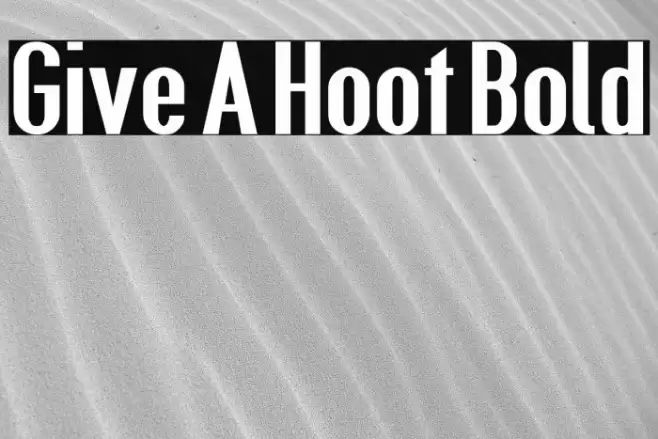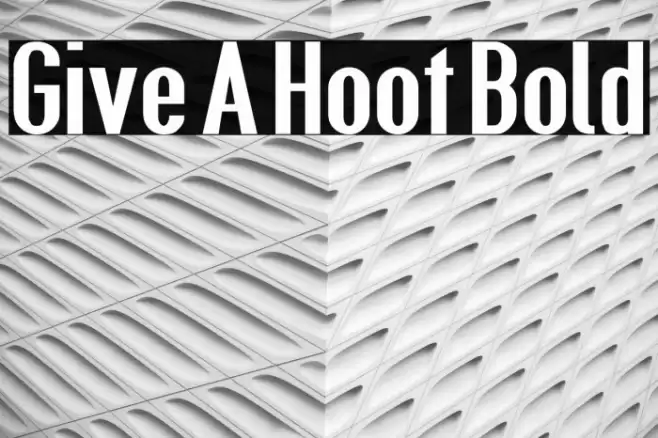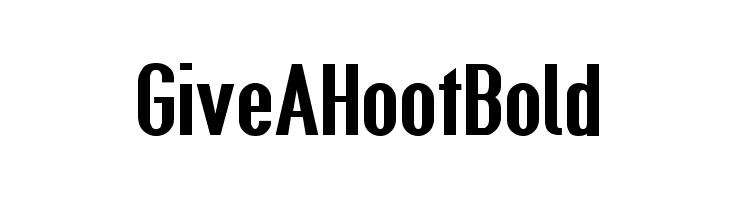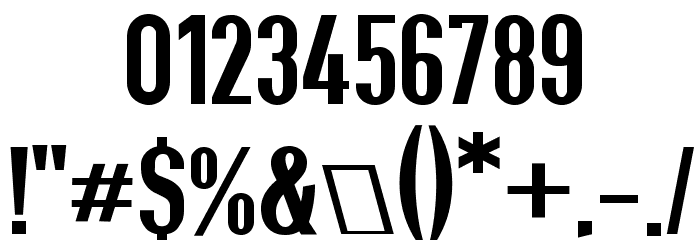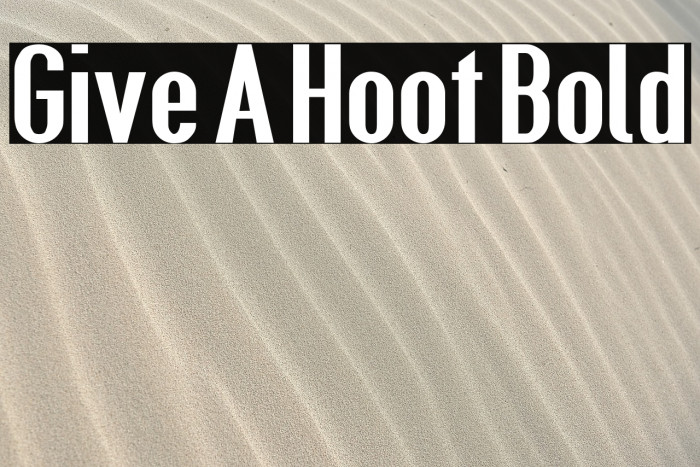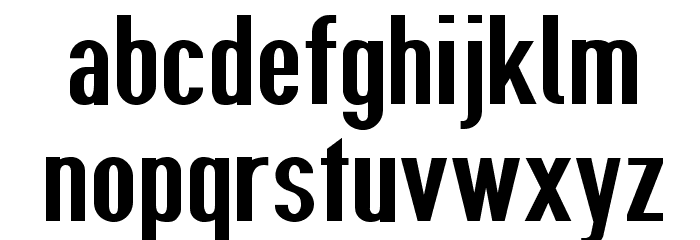
Give A Hoot Bold Font
Give A Hoot Bold Description
This font features a bold and impactful design with tall, narrow letters that convey a sense of strength and modernity. The uppercase and lowercase characters maintain a consistent height, creating a uniform appearance. The numerals are clear and easy to read, while the special characters are distinct and well-defined. The overall style is clean and professional, making it suitable for a variety of uses. The font's bold weight and condensed width give it a commanding presence, ideal for grabbing attention in headlines or logos. The character spacing is tight, enhancing its compact and efficient look. The high contrast in stroke thickness adds to its boldness, making it stand out in any design.
A bold, condensed font with high contrast and tight spacing, perfect for impactful designs from Uncategorized fonts.
- Proposed Projects: Ideal for headlines, branding, posters, and any project requiring a strong visual impact.
- Character Spacing: Tight